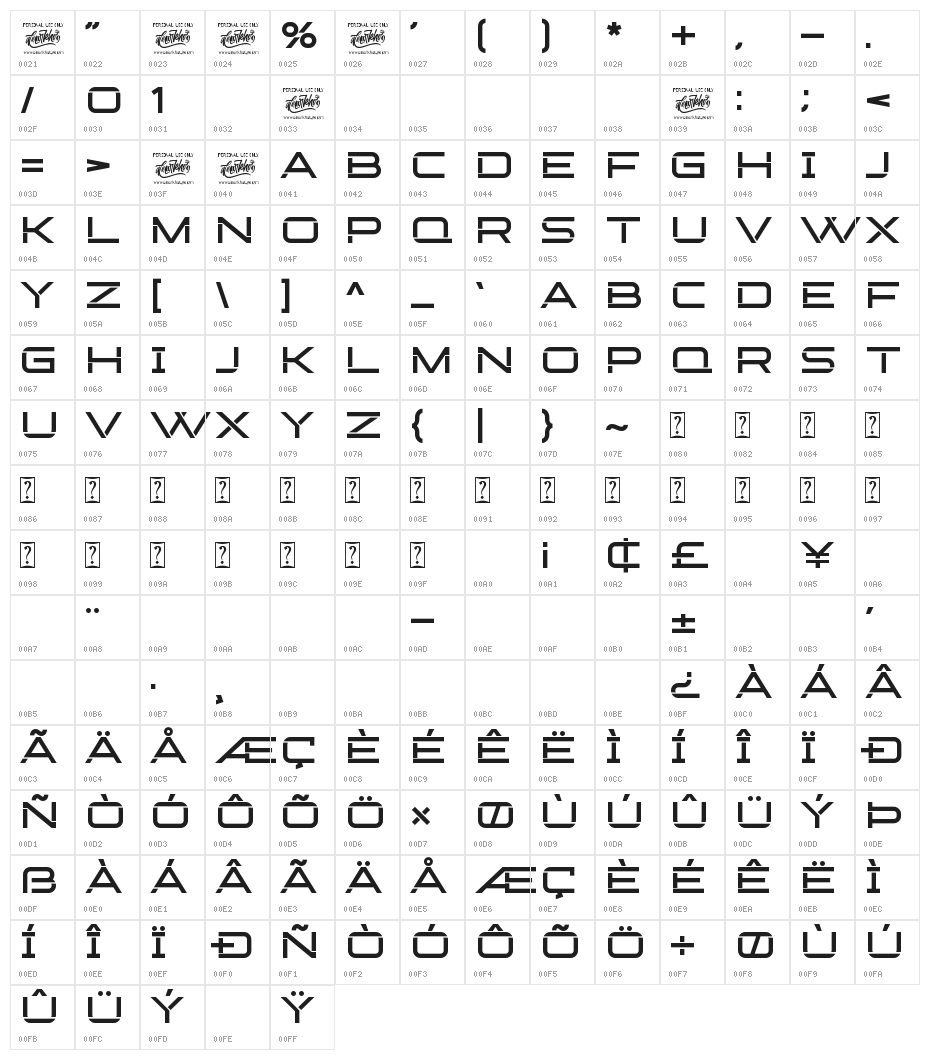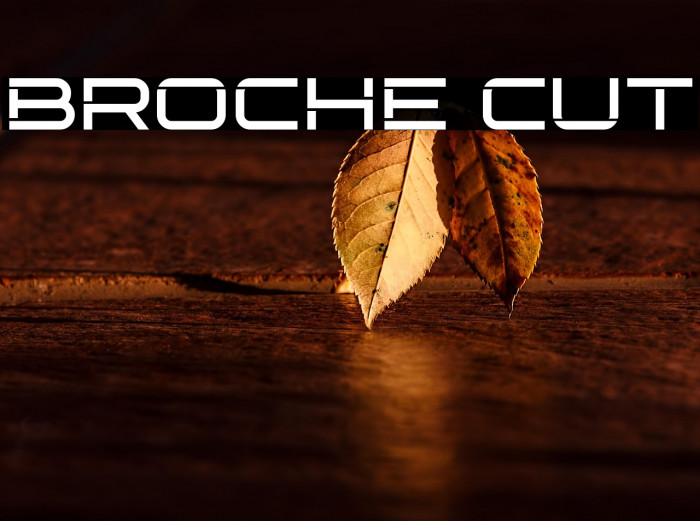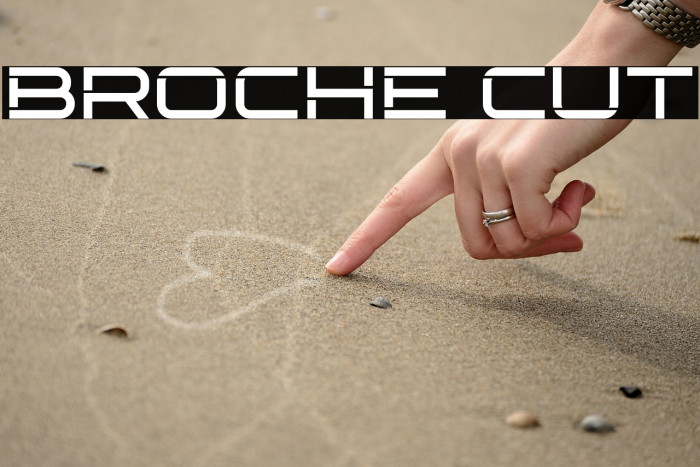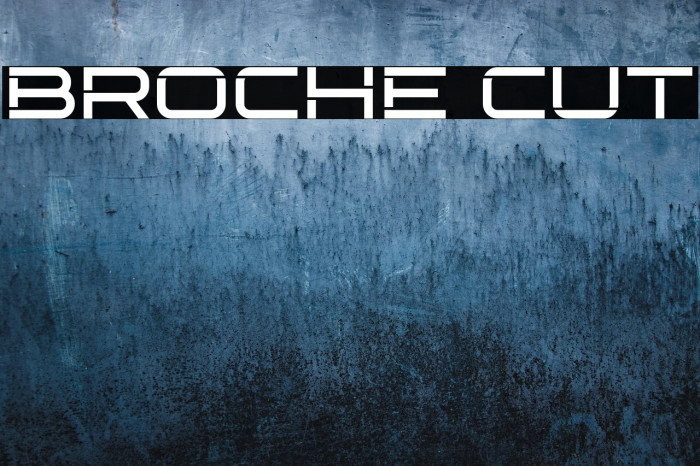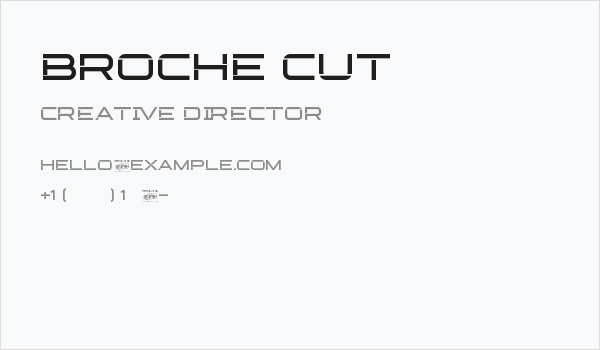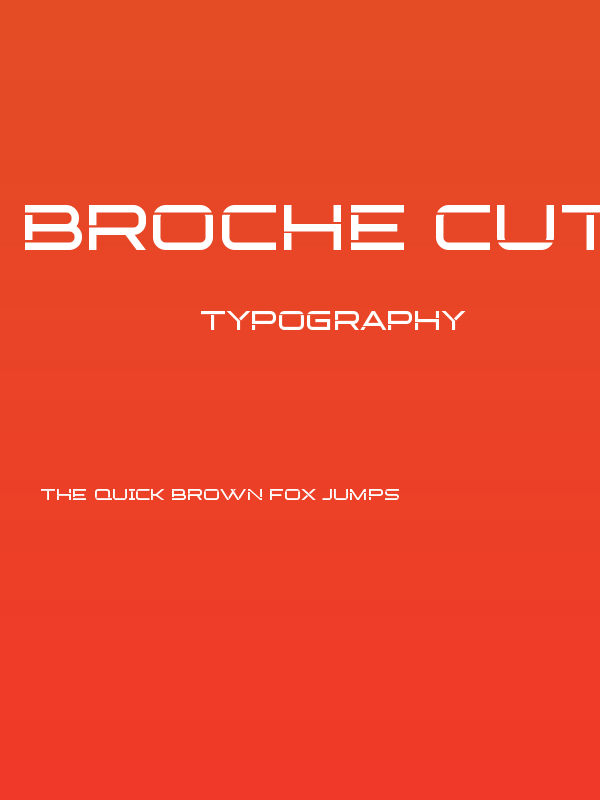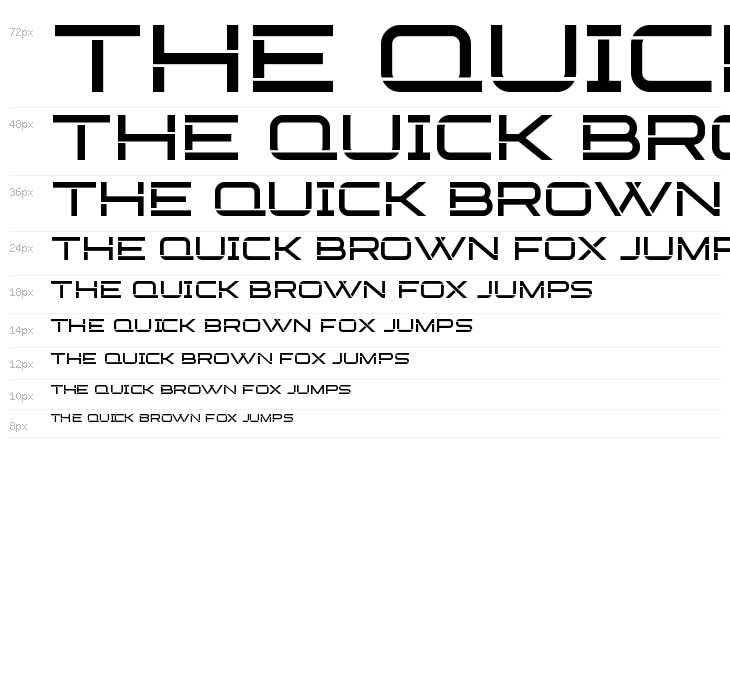
Broche Cut Font
Broche Cut Description
This font exhibits a modern, geometric style with a distinct, futuristic edge. The characters are constructed with clean, angular lines and sharp edges, giving it a sleek and contemporary appearance. The uppercase letters are uniform in height, while the lowercase letters maintain a consistent style, enhancing readability. The numbers and special characters follow the same design principles, ensuring a cohesive look across all text elements. The font's unique cut-out sections within each character add a dynamic and innovative touch, making it stand out in any design project.
| Use Case | Logos, Headlines, Branding |
| Proposed Projects | Ideal for technology branding, sci-fi themed projects, modern logos, and innovative product packaging. |